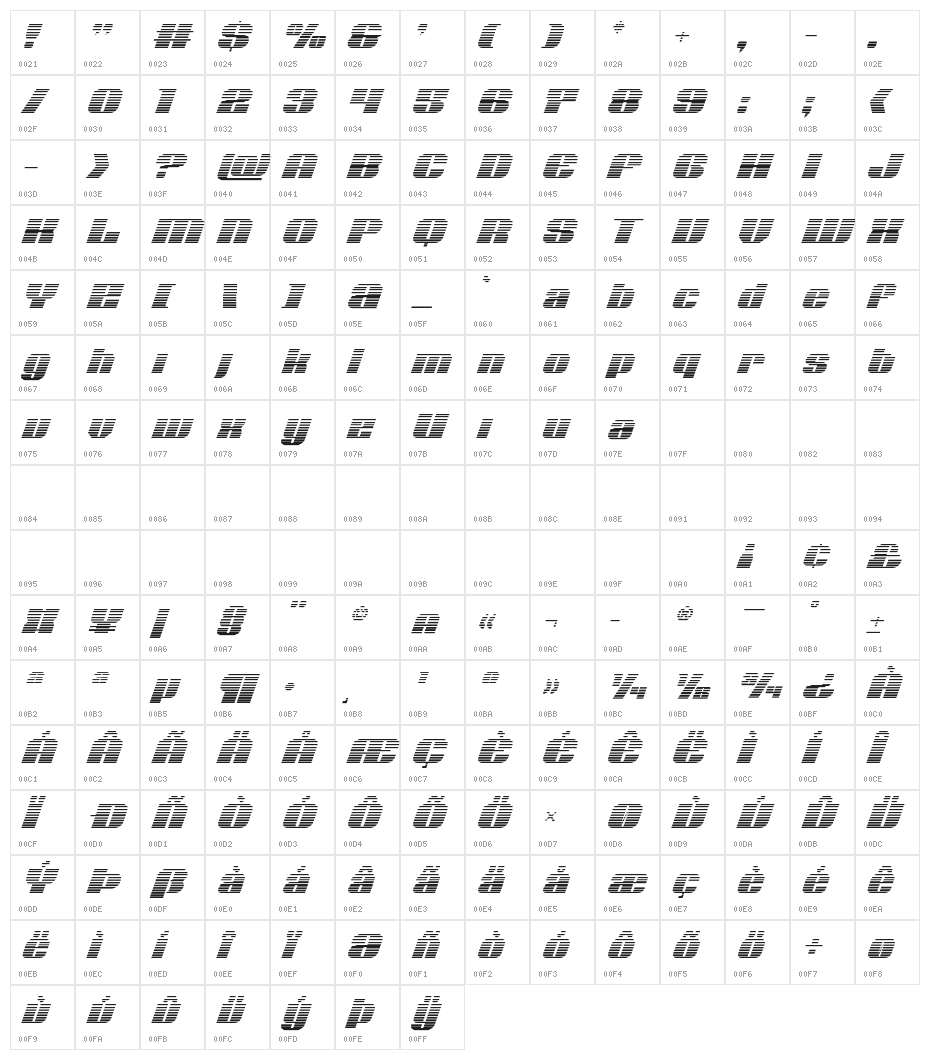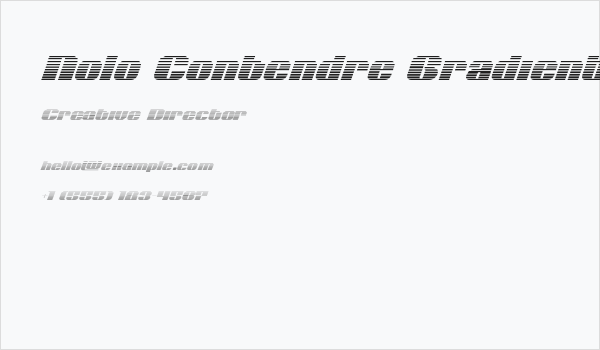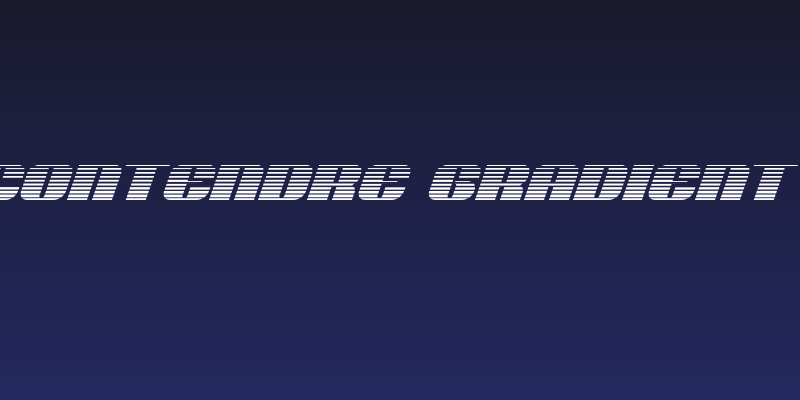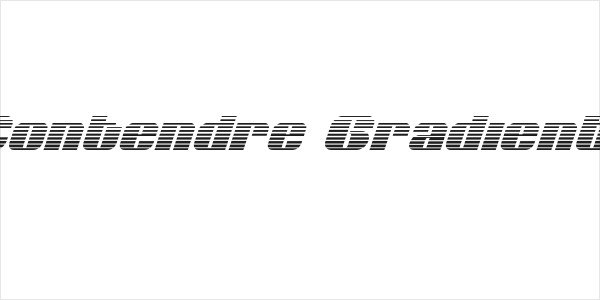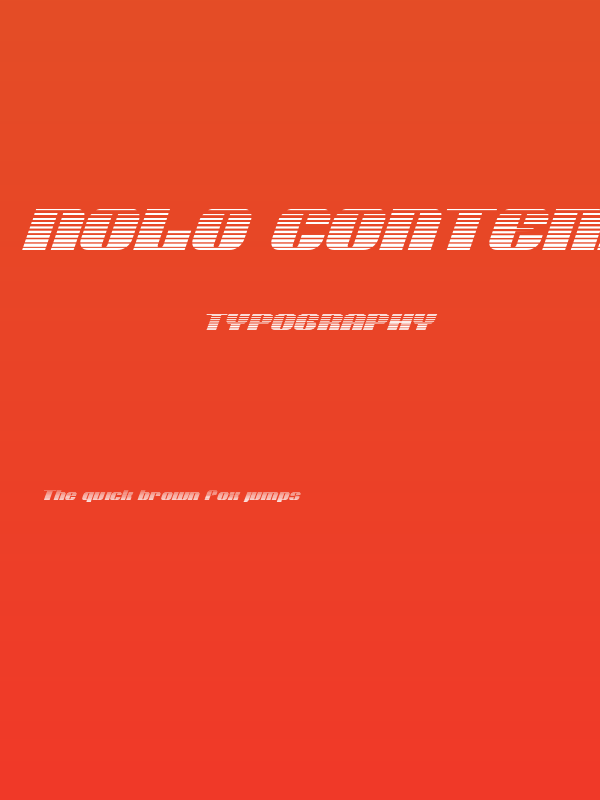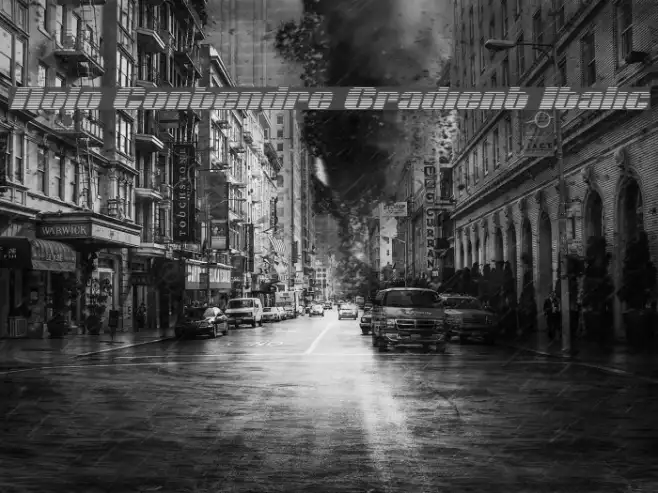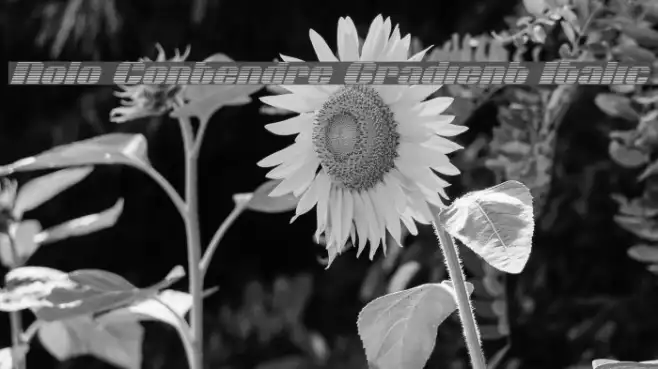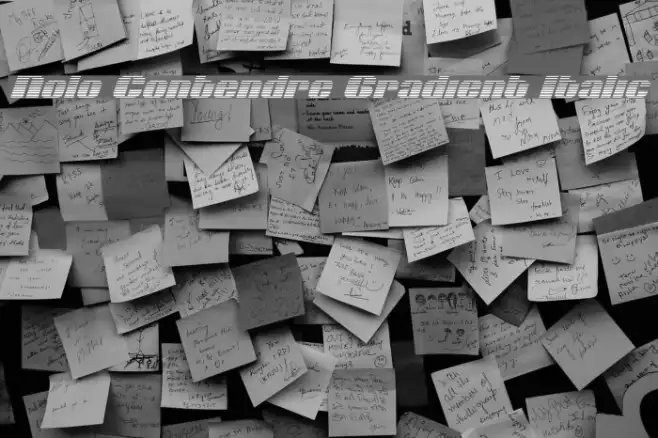
Nolo Contendre Gradient Italic Font
Nolo Contendre Gradient Italic Description
This font features a distinctive gradient effect with horizontal lines running through each character, creating a dynamic and modern appearance. The italicized style adds a sense of motion and speed, making it ideal for projects that require a futuristic or high-energy feel. The characters are bold and wide, with a consistent stroke width that enhances readability despite the intricate design. The uppercase and lowercase letters maintain a uniform style, while the numerals and special characters integrate seamlessly, ensuring versatility across different applications.
| Proposed Projects | Ideal for sports branding, tech-related designs, futuristic posters, and dynamic advertising campaigns. |